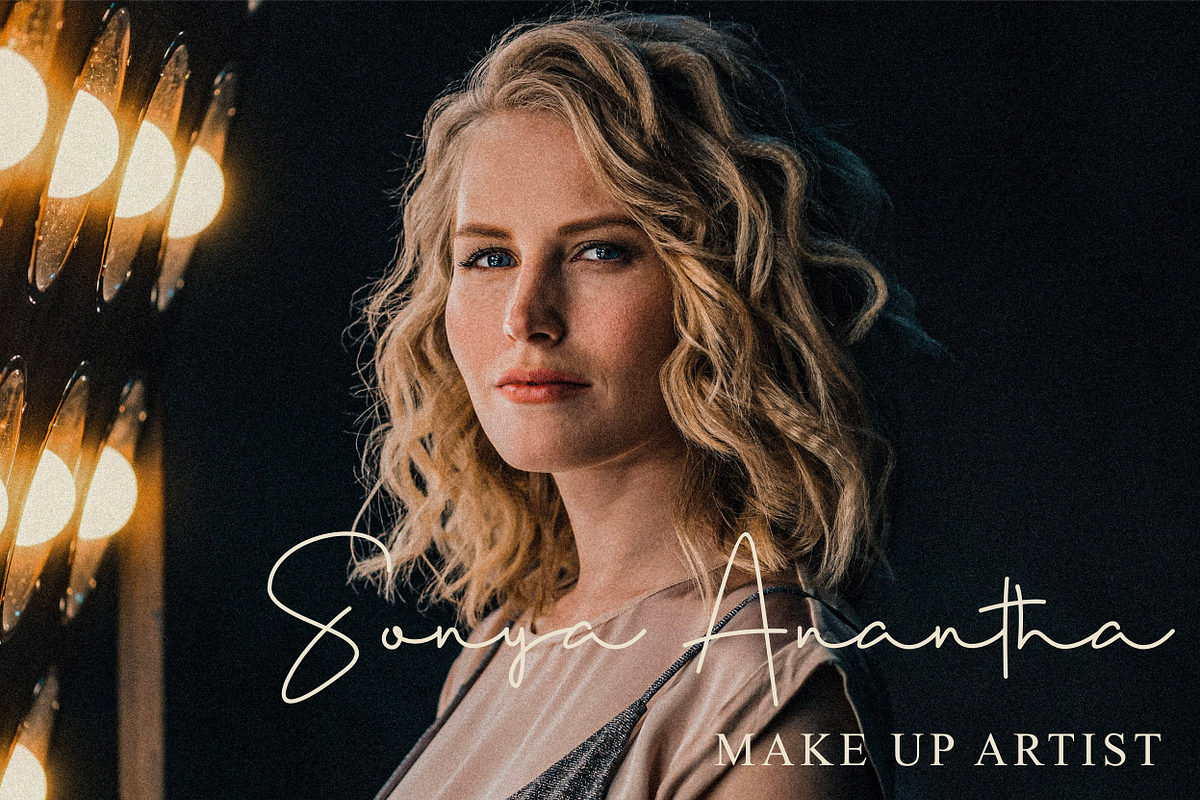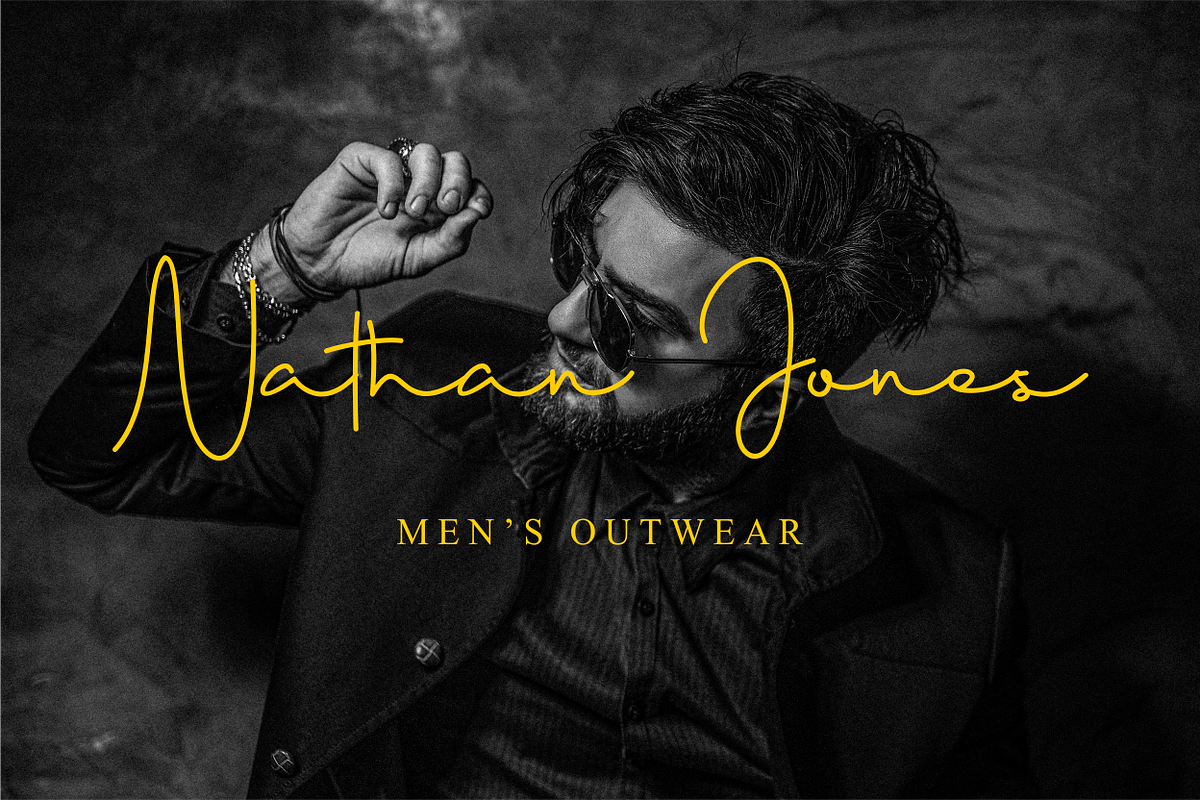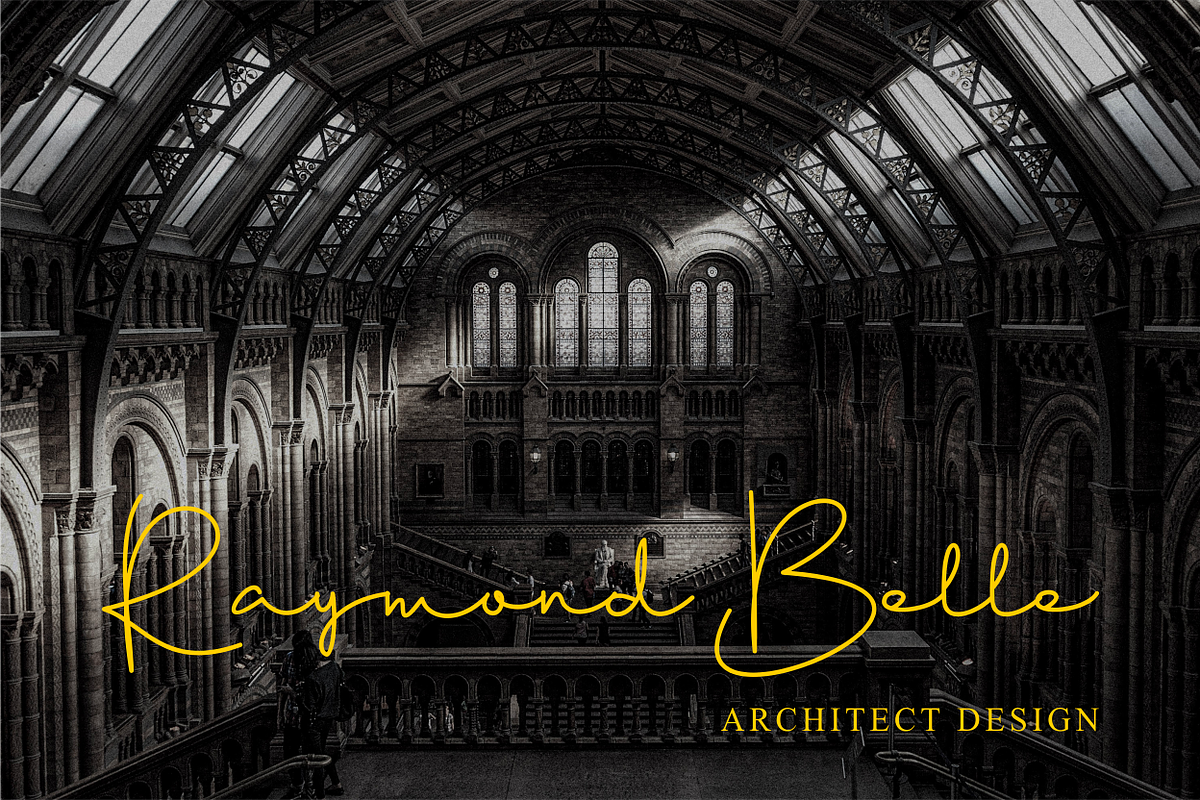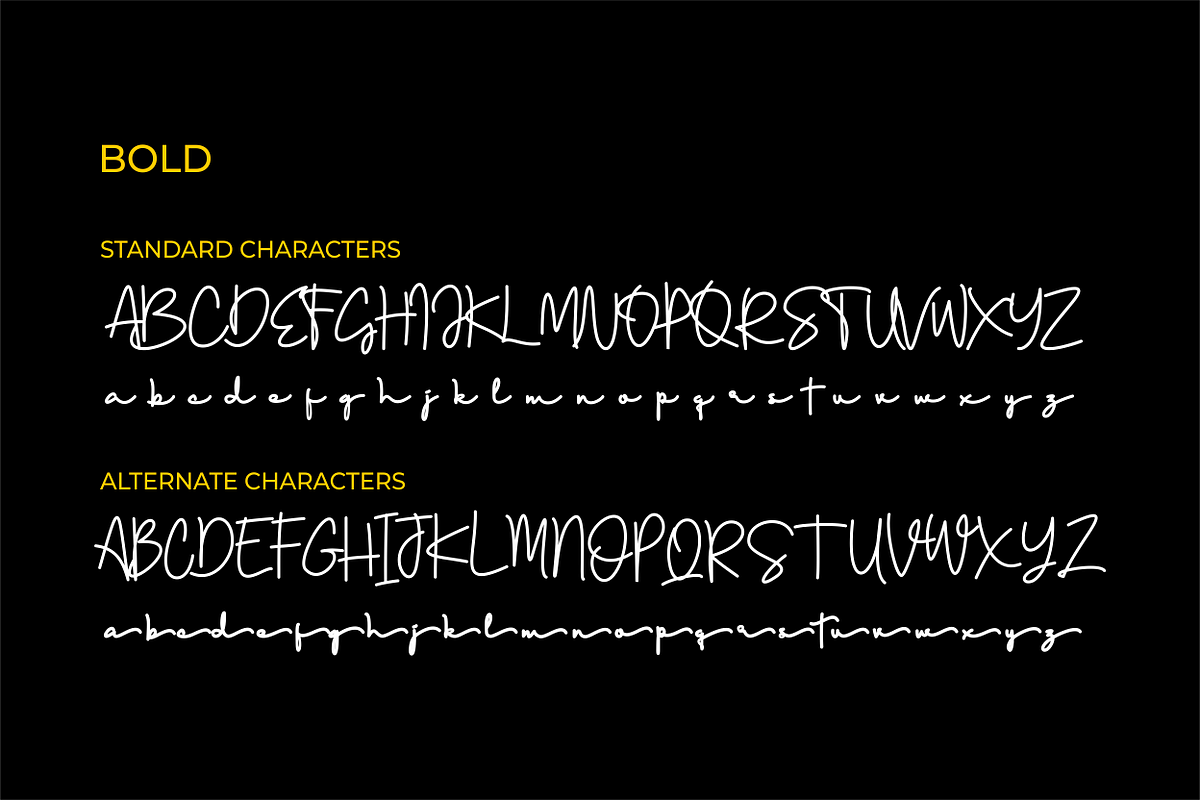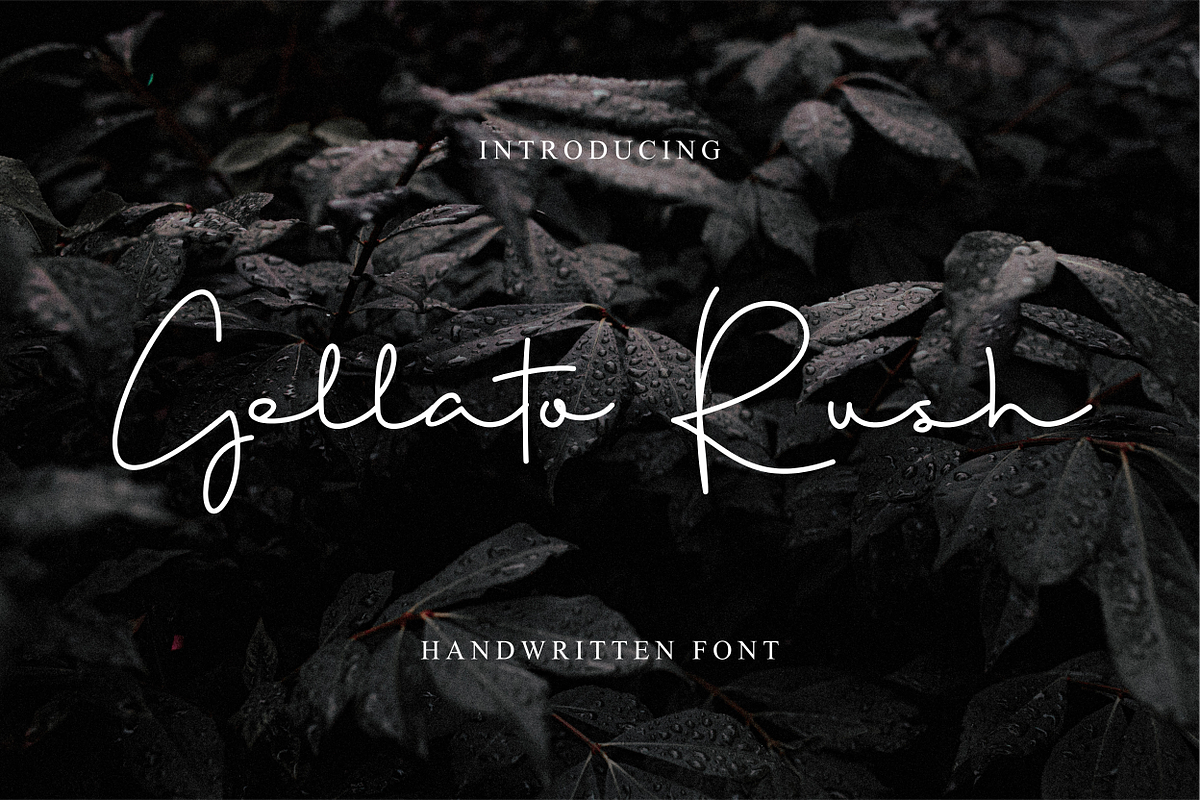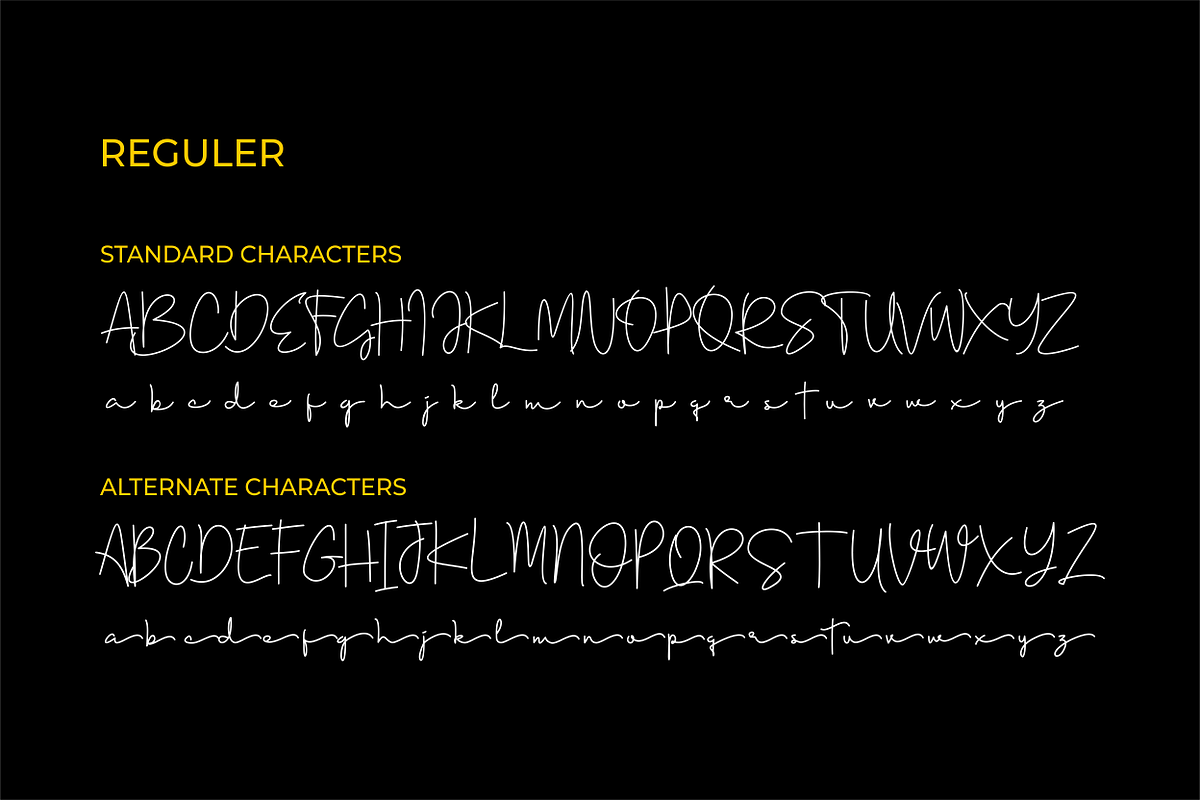
Gellato Rush
Gellato Rush - a new modern & fresh script with a handwritten and signature style make this font looks elegant, natural, stylish and perfect for any awesome projects that need handwriting taste.